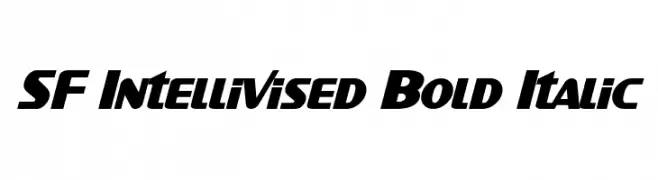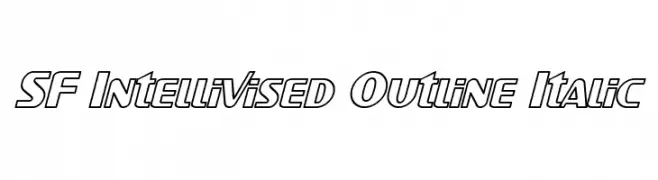
SF Intellivised Font
Font by ShyFonts
SF Intellivised Bold Font
Font by ShyFonts
A bold, geometric typeface with a modern and uniform appearance.
SF Intellivised Bold Italic Font
Font by ShyFonts
A bold, italic font with a dynamic and modern style.
SF Intellivised Extended Font
Font by ShyFonts
A bold, futuristic font with a geometric and dynamic style.
SF Intellivised Extended Italic Font
Font by ShyFonts
A bold, extended italic font with a modern and dynamic style.
SF Intellivised Italic Font
Font by ShyFonts
A bold, modern italic font with a dynamic and sleek design.
SF Intellivised Outline Font
Font by ShyFonts
A bold, outlined, modern geometric font with consistent stroke thickness.
SF Intellivised Outline Italic Font
Font by ShyFonts
A modern, italicized outline font with bold, dynamic characters.